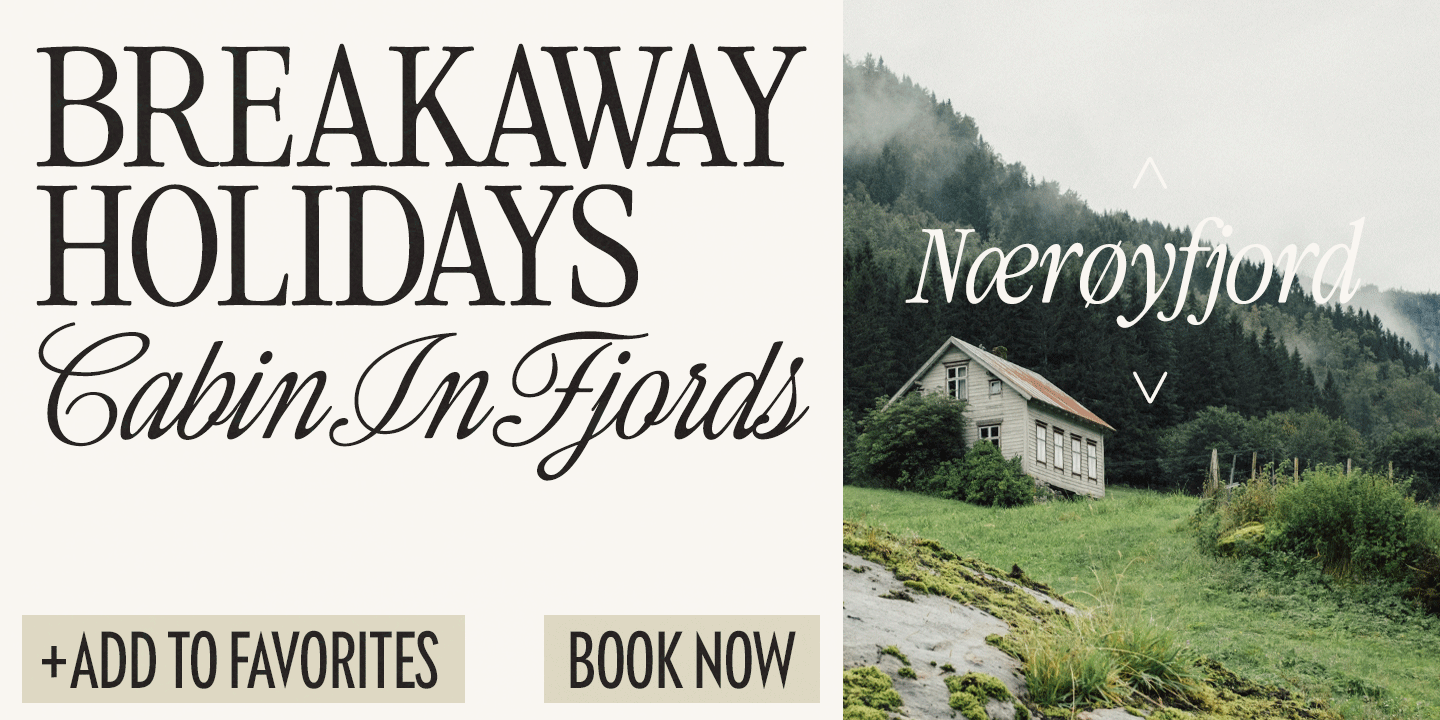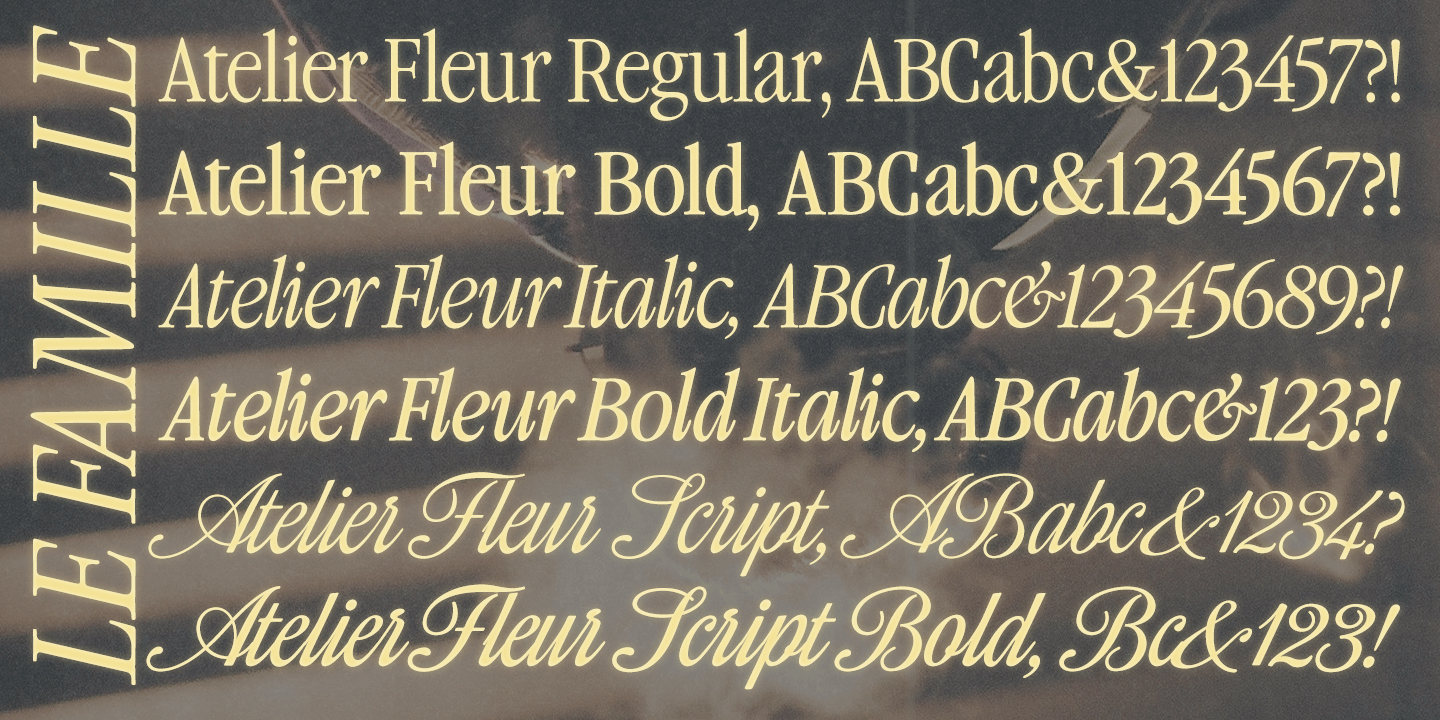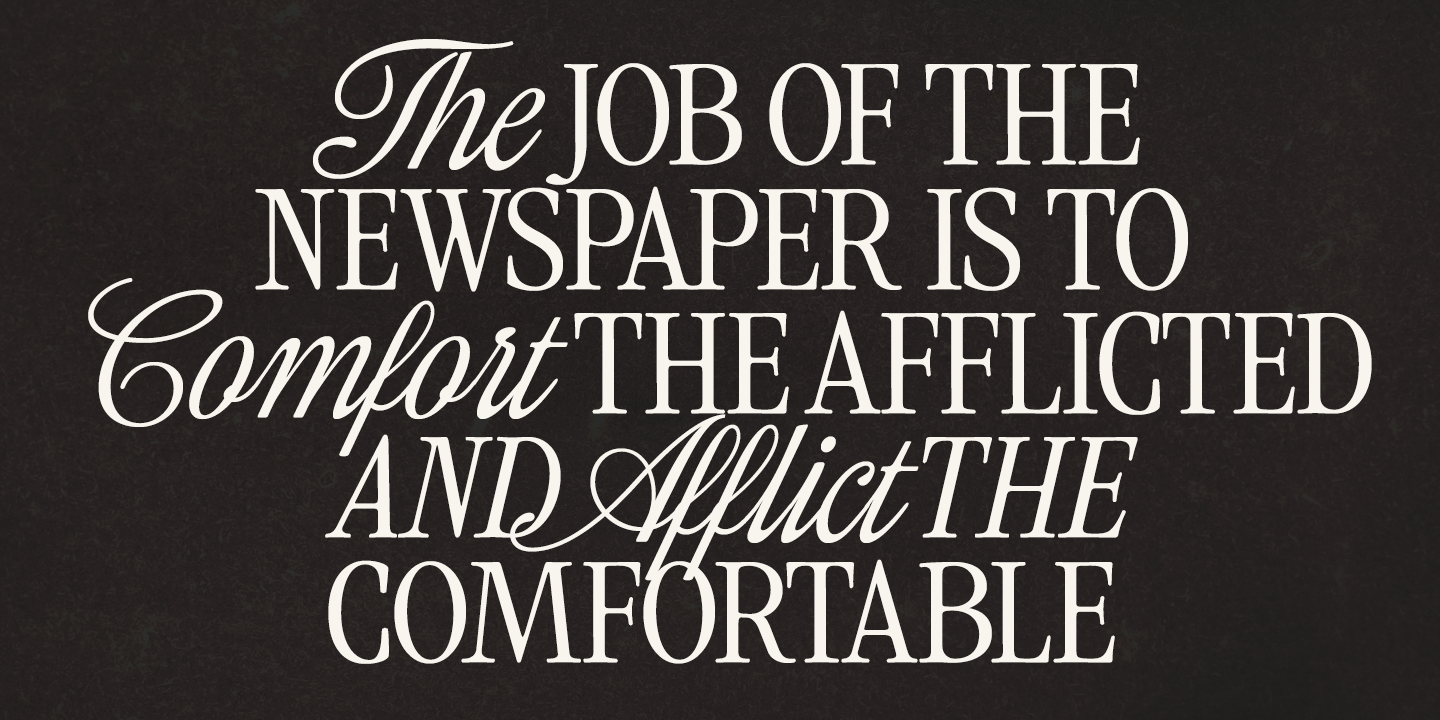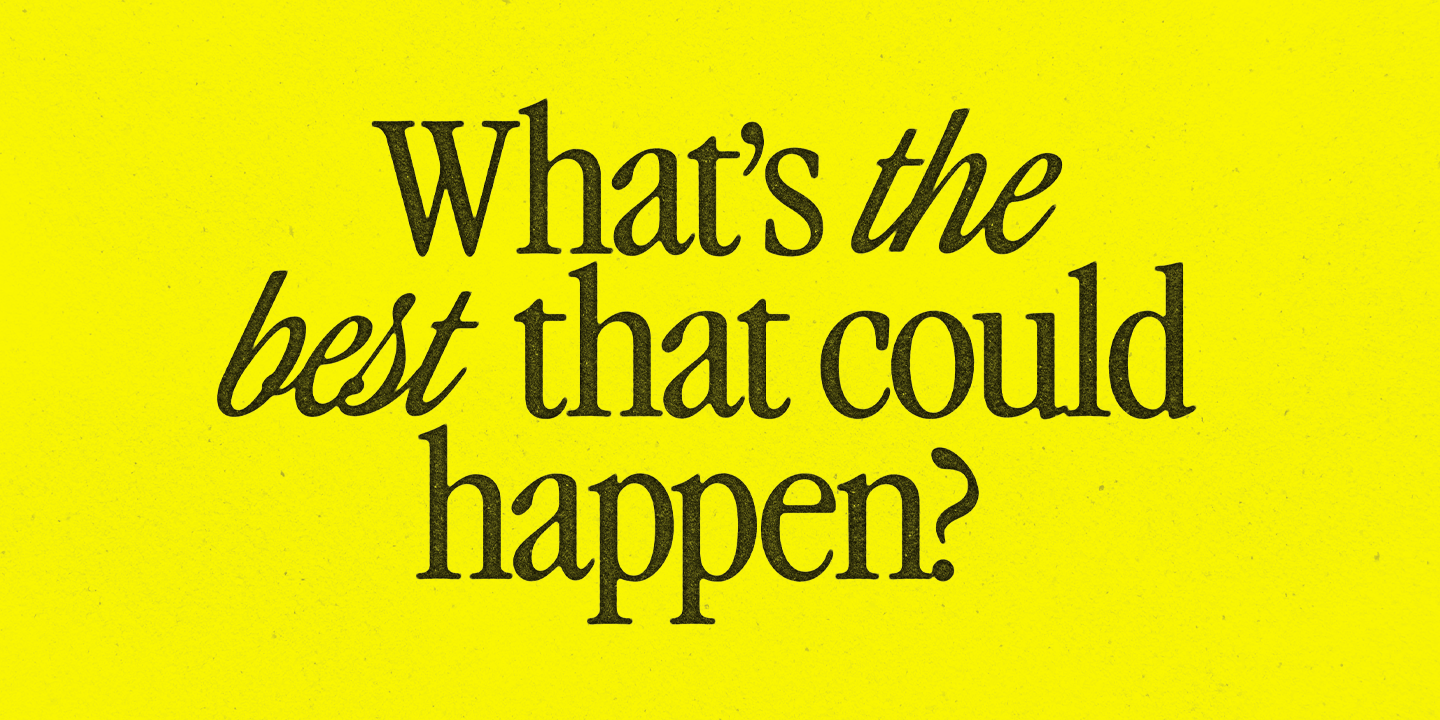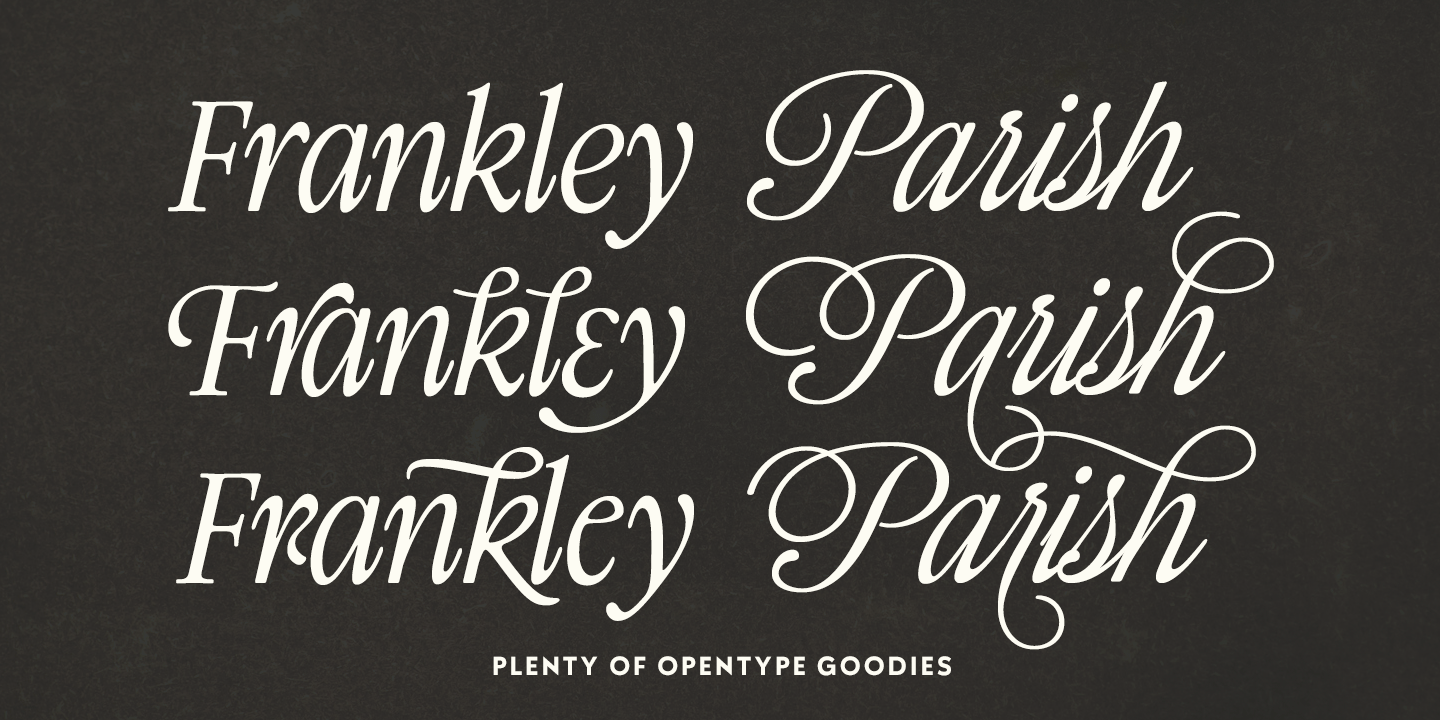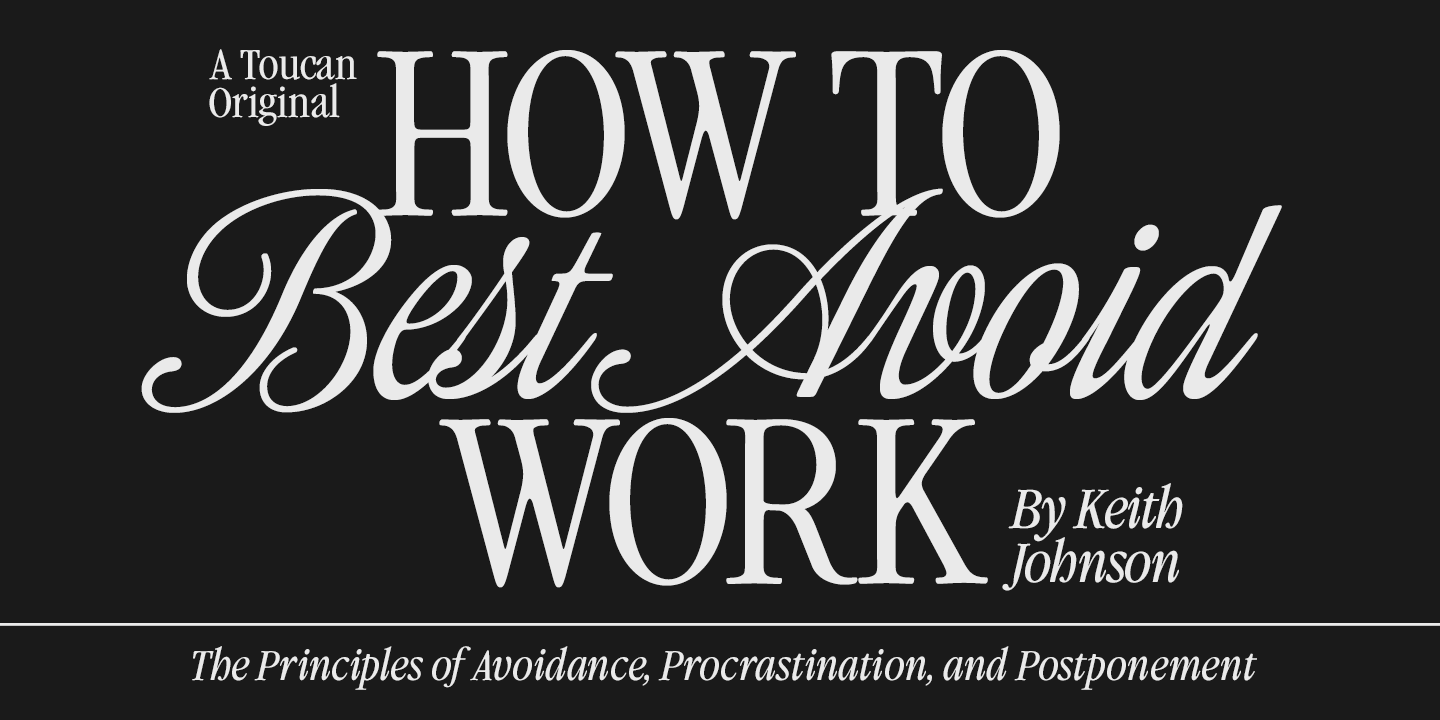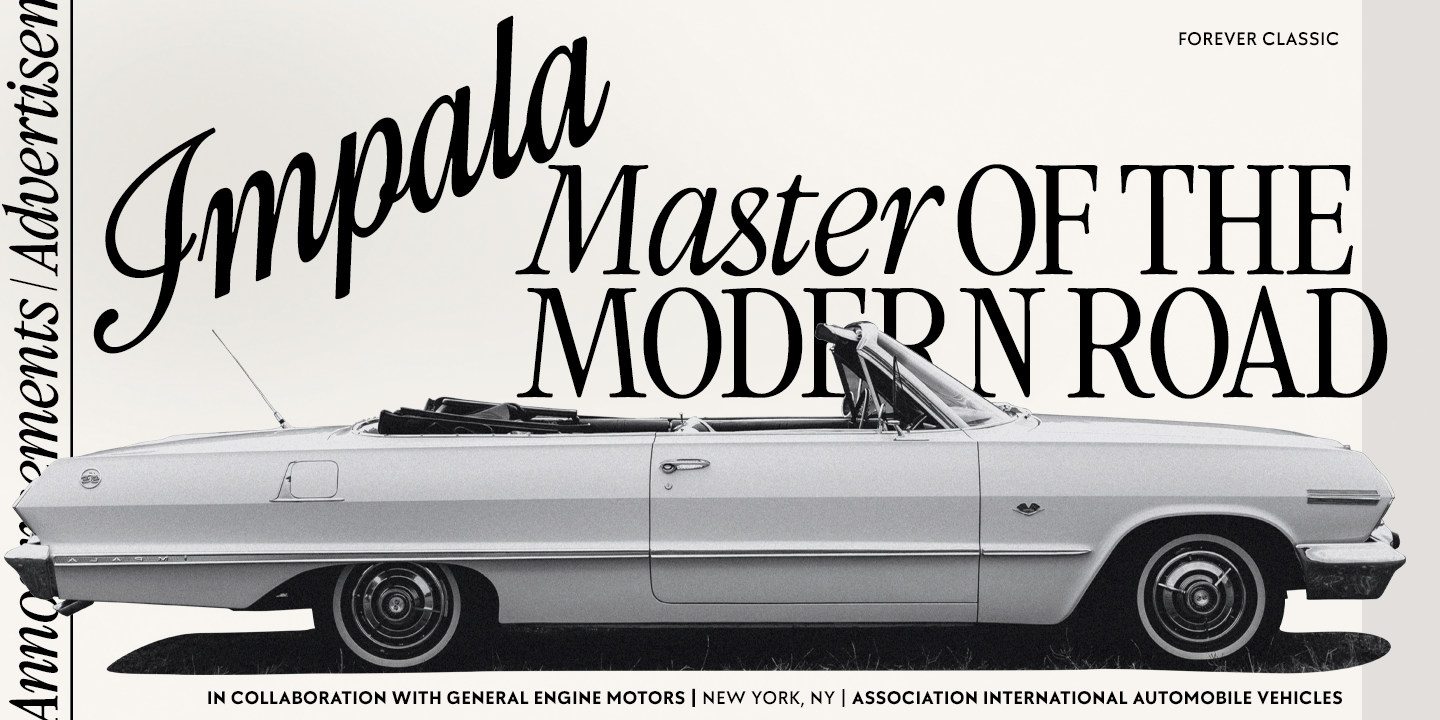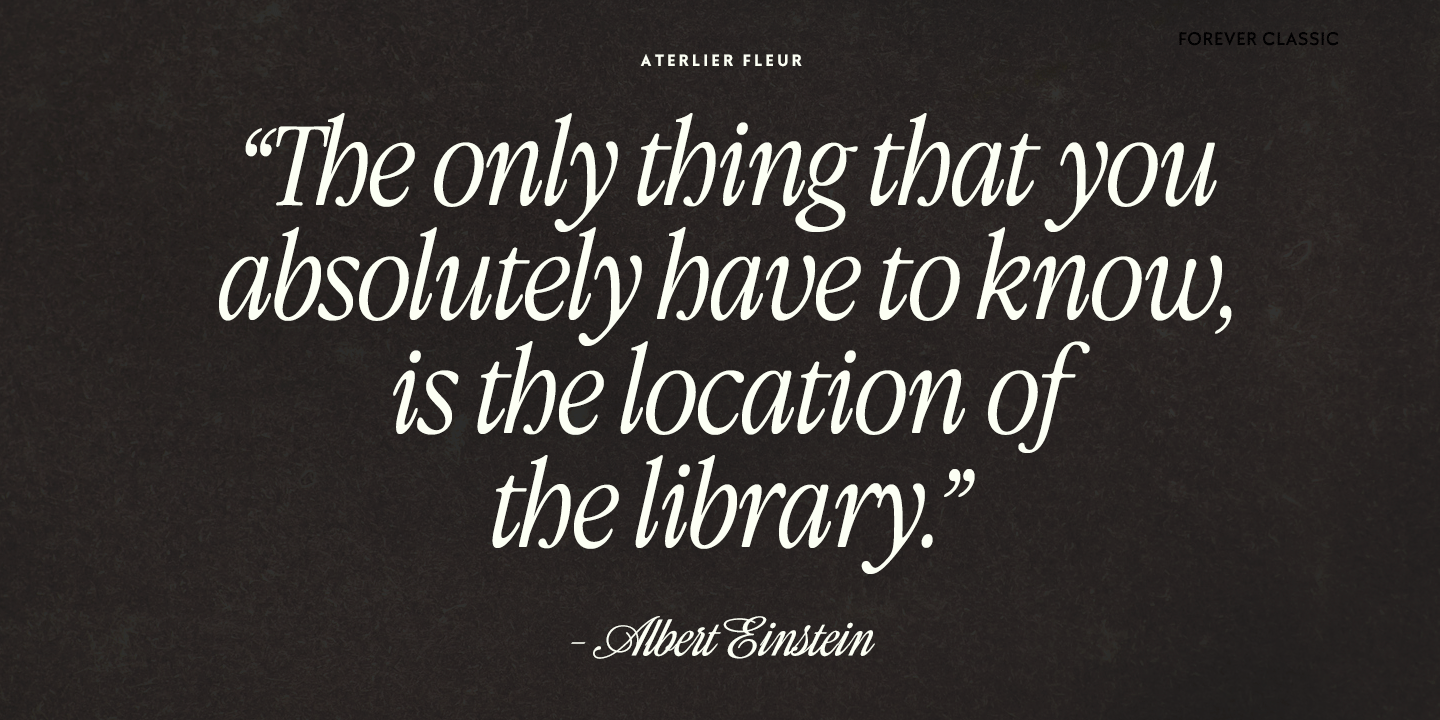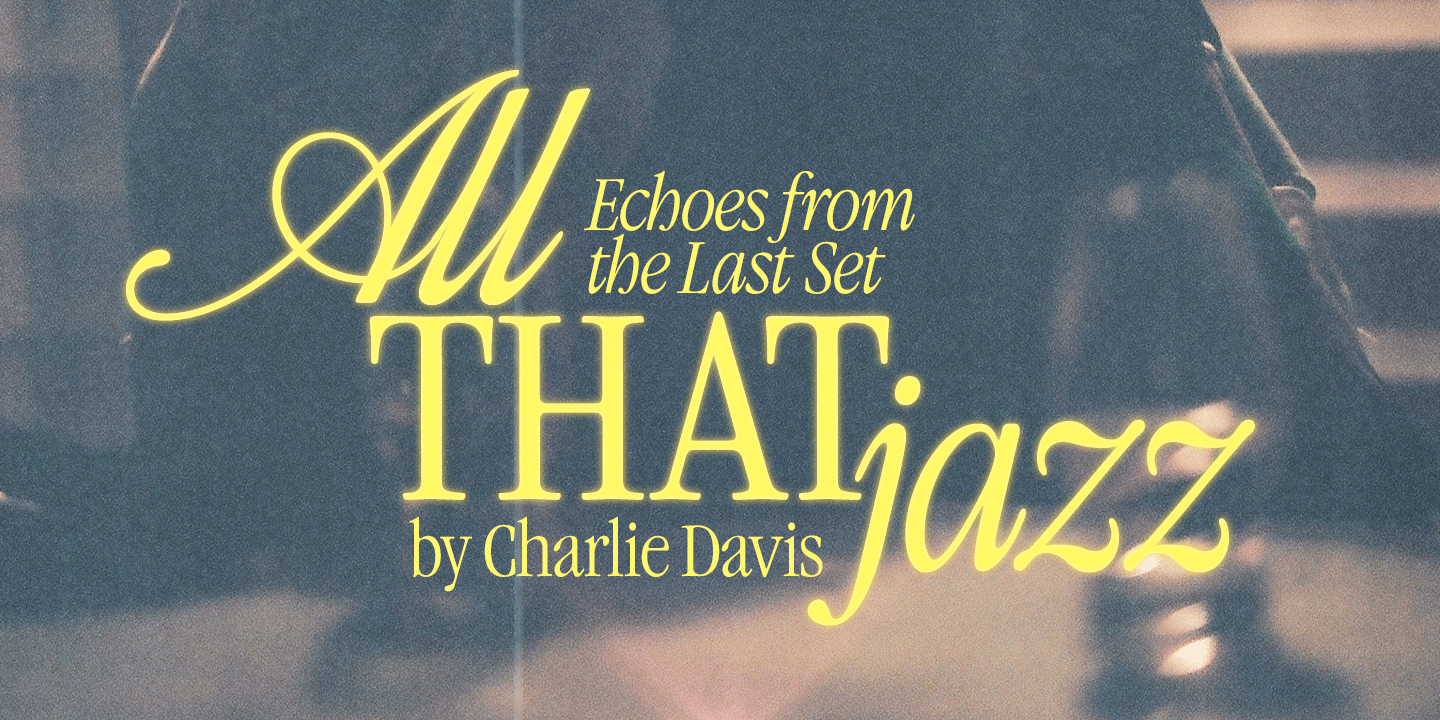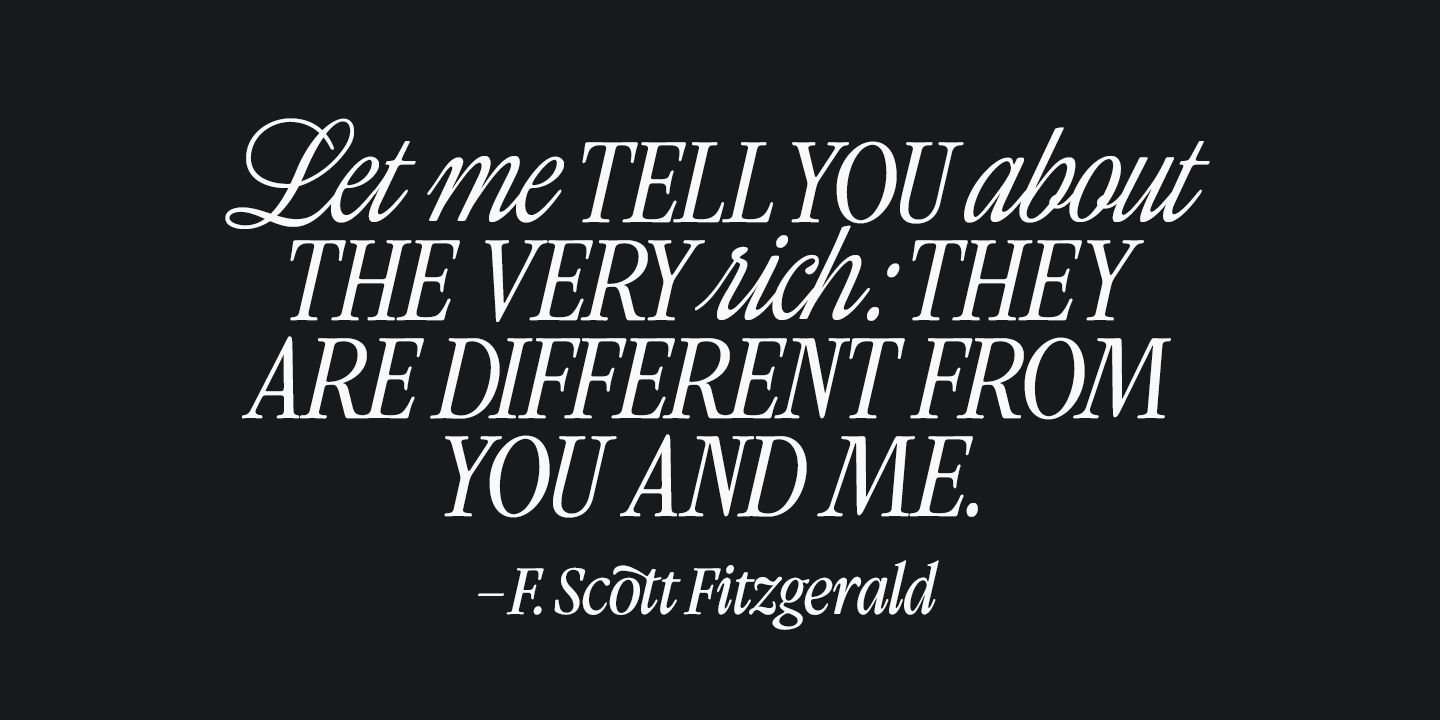
Atelier Fleur
Font Family by Fenotype
Atelier Fleur is a condensed serif type family inspired by Garamond. The family consists of Serif, Italic, and Script styles, each available in Regular and Bold weights.